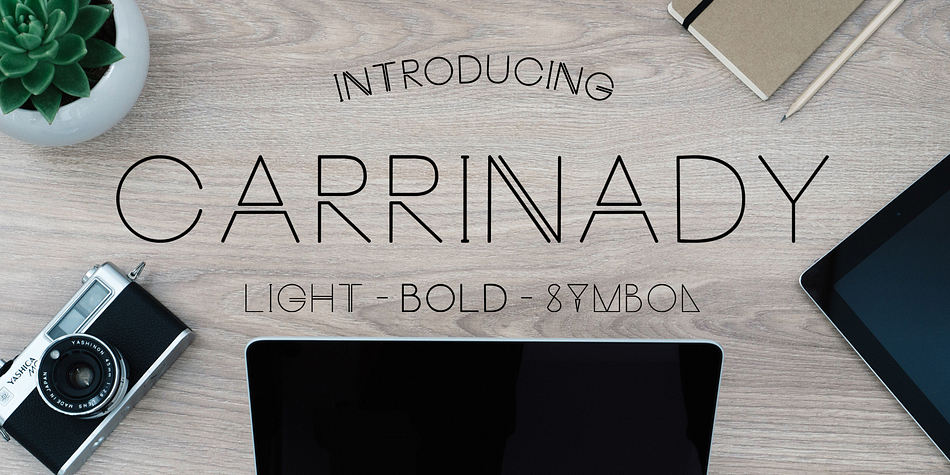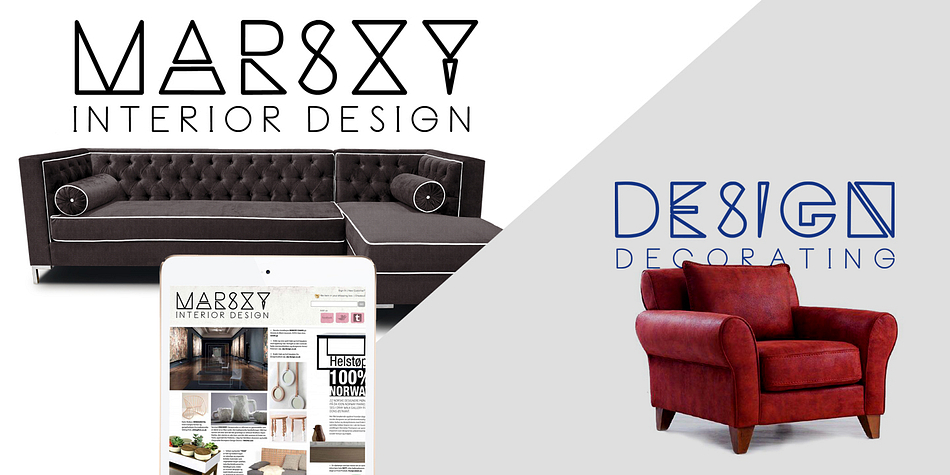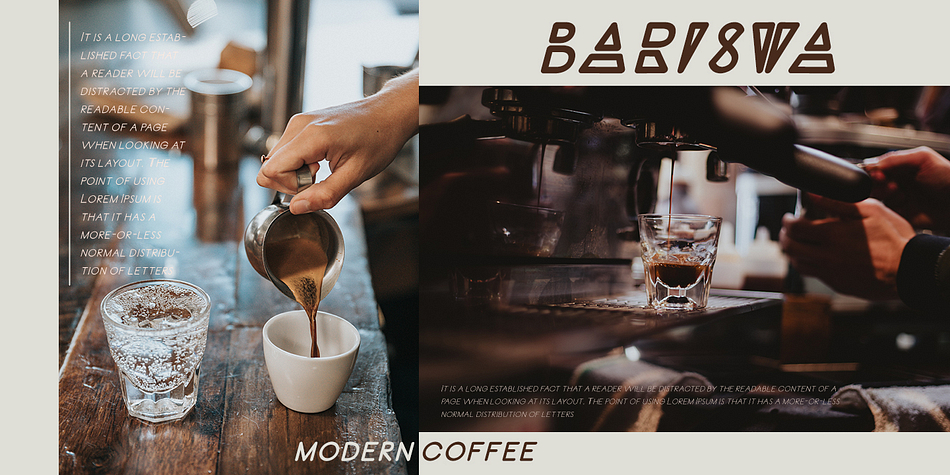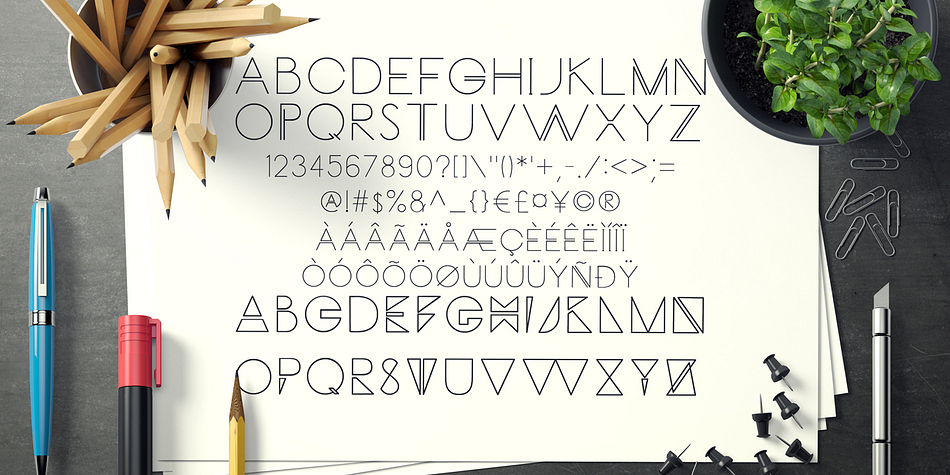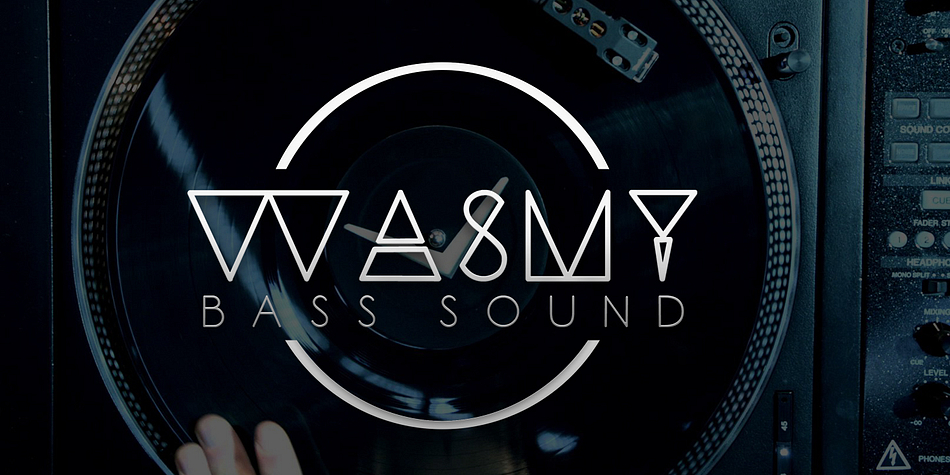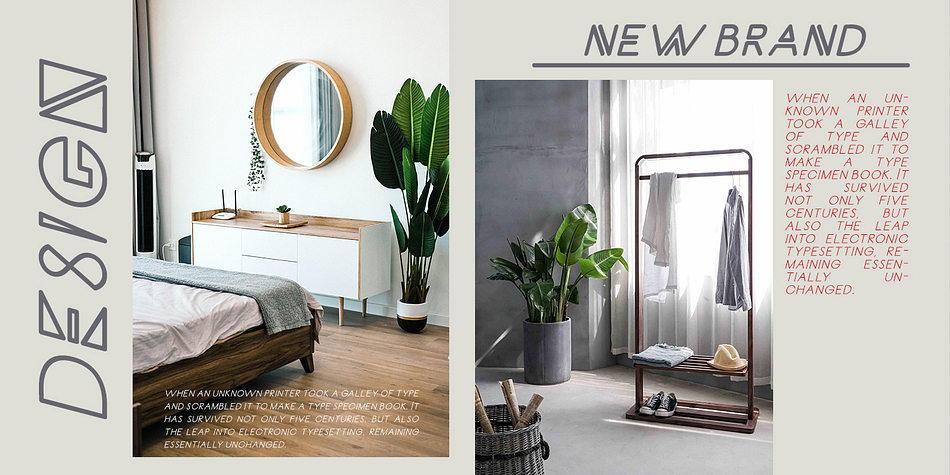
Carrinady is a display sans font family. This typeface has five styles and was published by madeDeduk.
Hello I’m really excited to introduce Carrinady logotype is a modern typeface font style. suitable to create any branding, product packaging, invitation, qoutes, t-shirt, label, poster, logo etc.